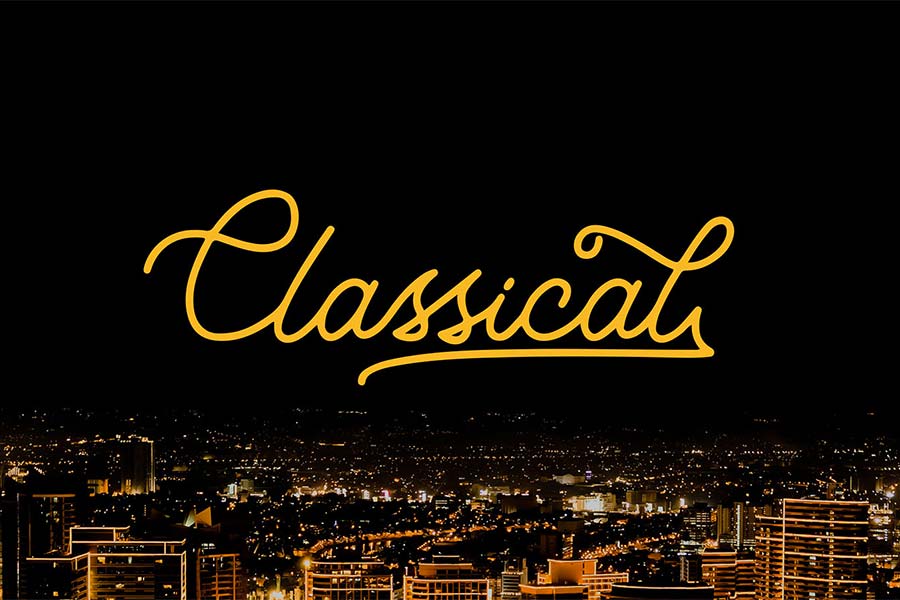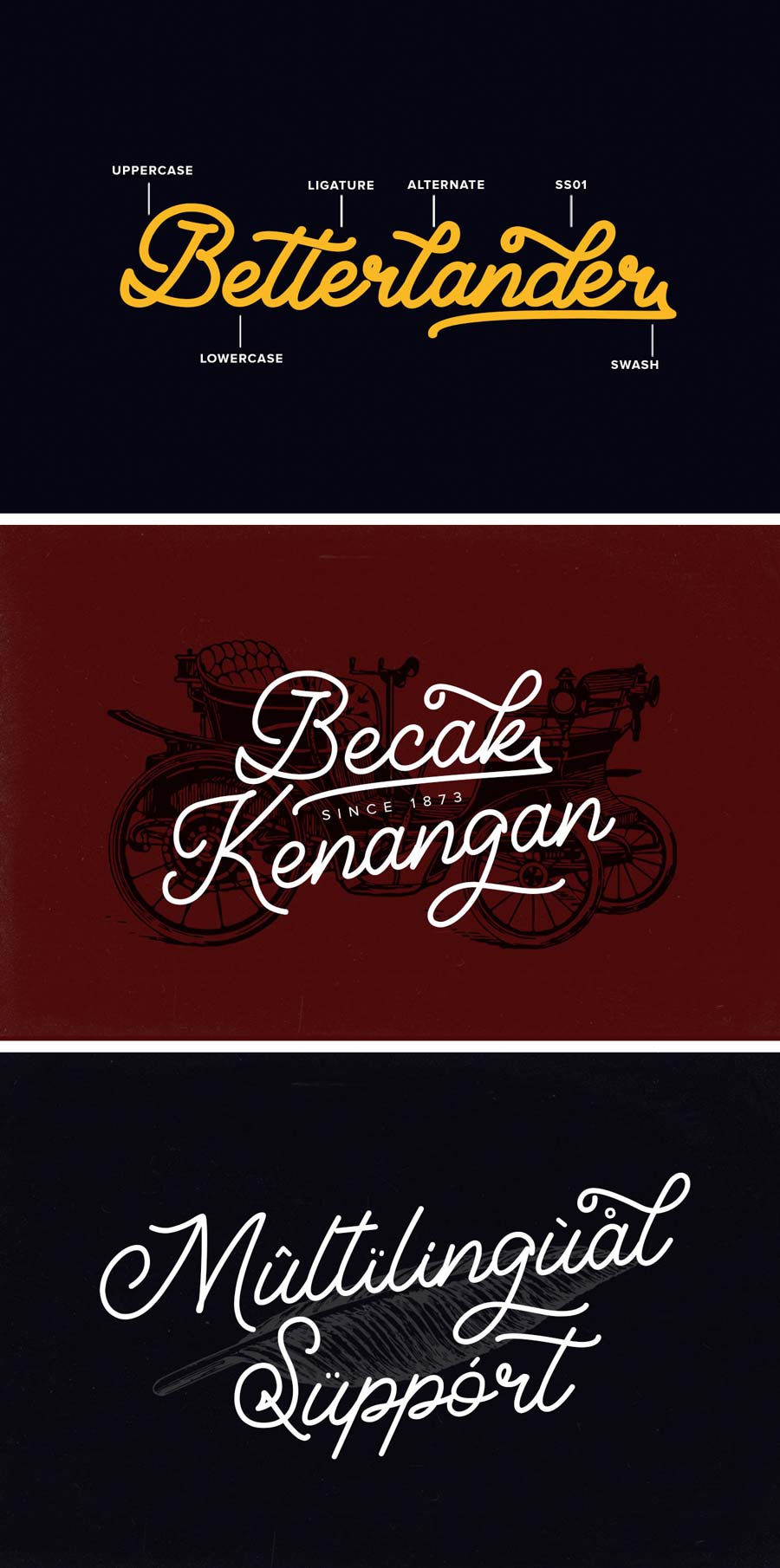
Classical Monoline script font is a beautifully designed font with smooth and elegant curvatures. The construction of the font are quite clean, but added swashes on certain characters to express the unique personality of the font.
You can use this font on logo and branding projects, posters, labels, invitation cards and more. It supports multiple languages, and comes with two font weights which is regular and bold. You can download and use it on personal and commercial projects.